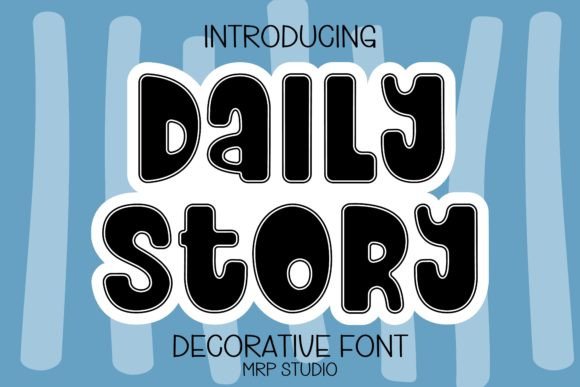
Unleash the Charm of Your Creative Endeavors with Daily Story Font - Where Enchantment Meets Expression!
Prepare to be swept away by the magic of Daily Story Font, a captivating decorative font that will infuse your creative projects with an irresistible touch of charm and playfulness. This enchanting font, meticulously crafted by the renowned MRP STUDIO, is designed to add a spark of joy and wonder to your design endeavors, transforming them into masterpieces that capture the hearts of your audience.
With Daily Story Font, you hold the key to unlocking a world of creative possibilities. Its meticulously crafted characters, each a work of art in its own right, dance across the page, evoking a sense of whimsy and delight that is sure to leave a lasting impression. Let your imagination soar as you explore the endless applications of this versatile font, from creating personalized invitations and greeting cards to designing eye-catching posters and social media graphics.
Step into the realm of boundless creativity and let Daily Story Font guide you on an adventure where every letter tells a story. Whether you're designing for a child-related project, such as a back-to-school bash or a vibrant birthday party, or seeking to add a touch of cheer to any topic that calls for a bright and playful flair, Daily Story Font is your perfect companion.
Picture the astonishment on your child's face as they receive an invitation to their birthday extravaganza, adorned with the whimsical characters of Daily Story Font. The font's lively personality will create an unforgettable experience, setting the tone for a day filled with laughter, joy, and cherished memories.
Take your creative pursuits to new heights with Daily Story Font, the ultimate font for expressing your individuality and captivating your audience. Its enchanting charm is guaranteed to make your projects shine brighter than ever before, leaving an indelible mark on the hearts of those who encounter them.
So, embark on this creative journey with Daily Story Font and let your imagination run wild. Experience the transformative power of this extraordinary font as it elevates your designs to new heights of beauty and enchantment. Embrace the magic of Daily Story Font today and unlock a world of creative possibilities that will leave you breathless!